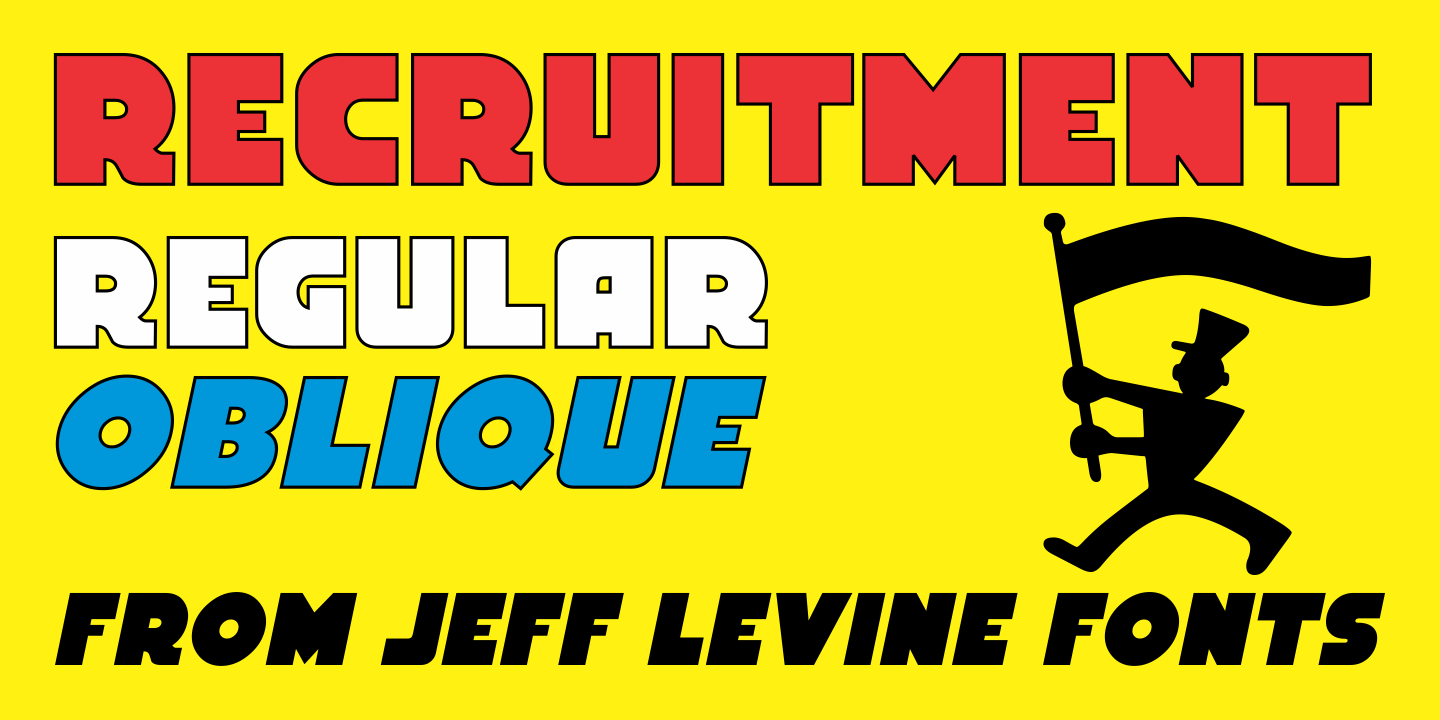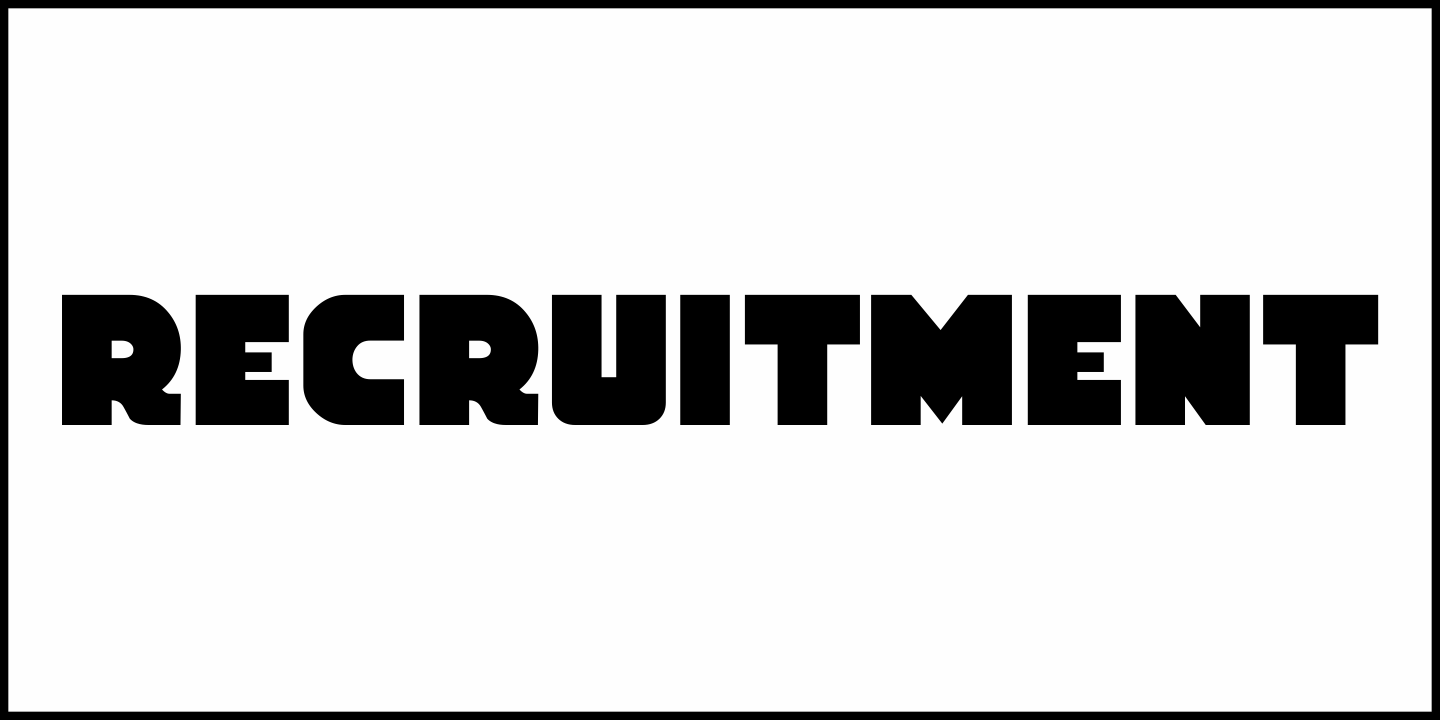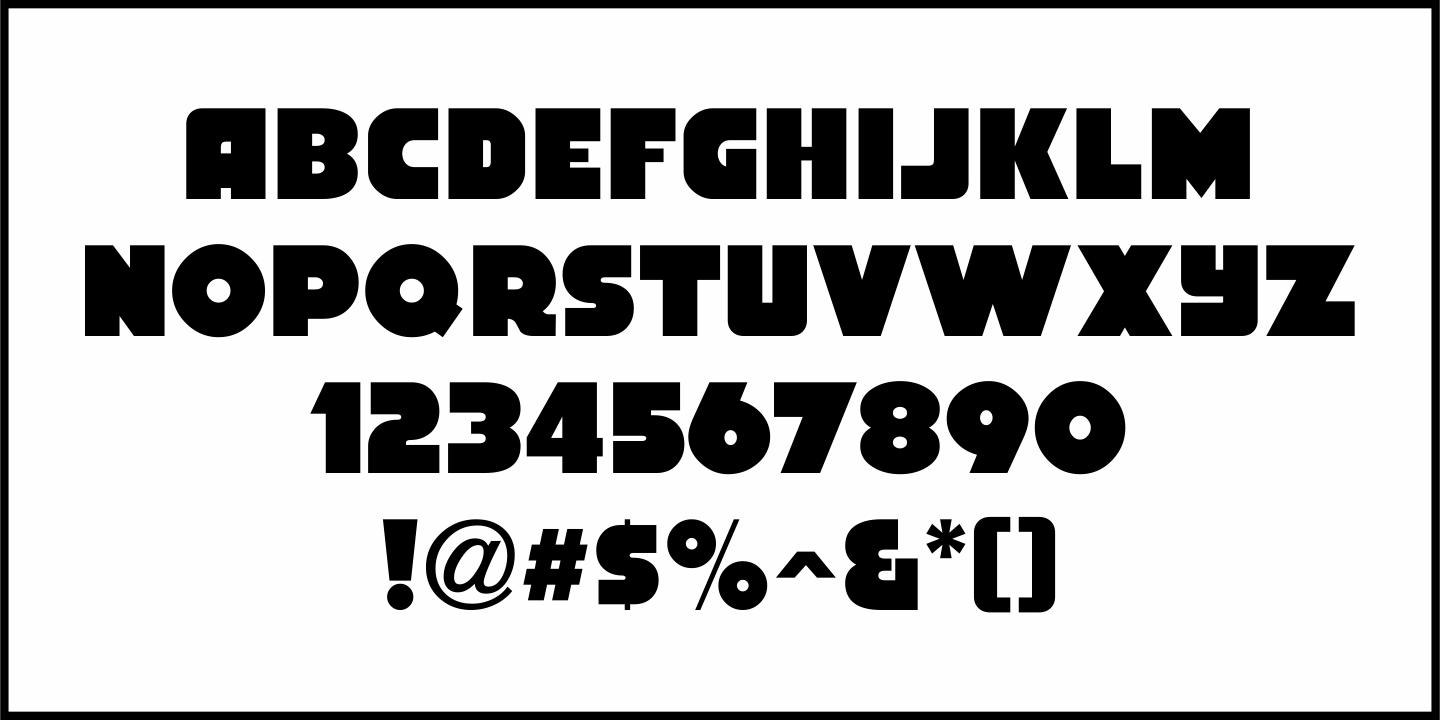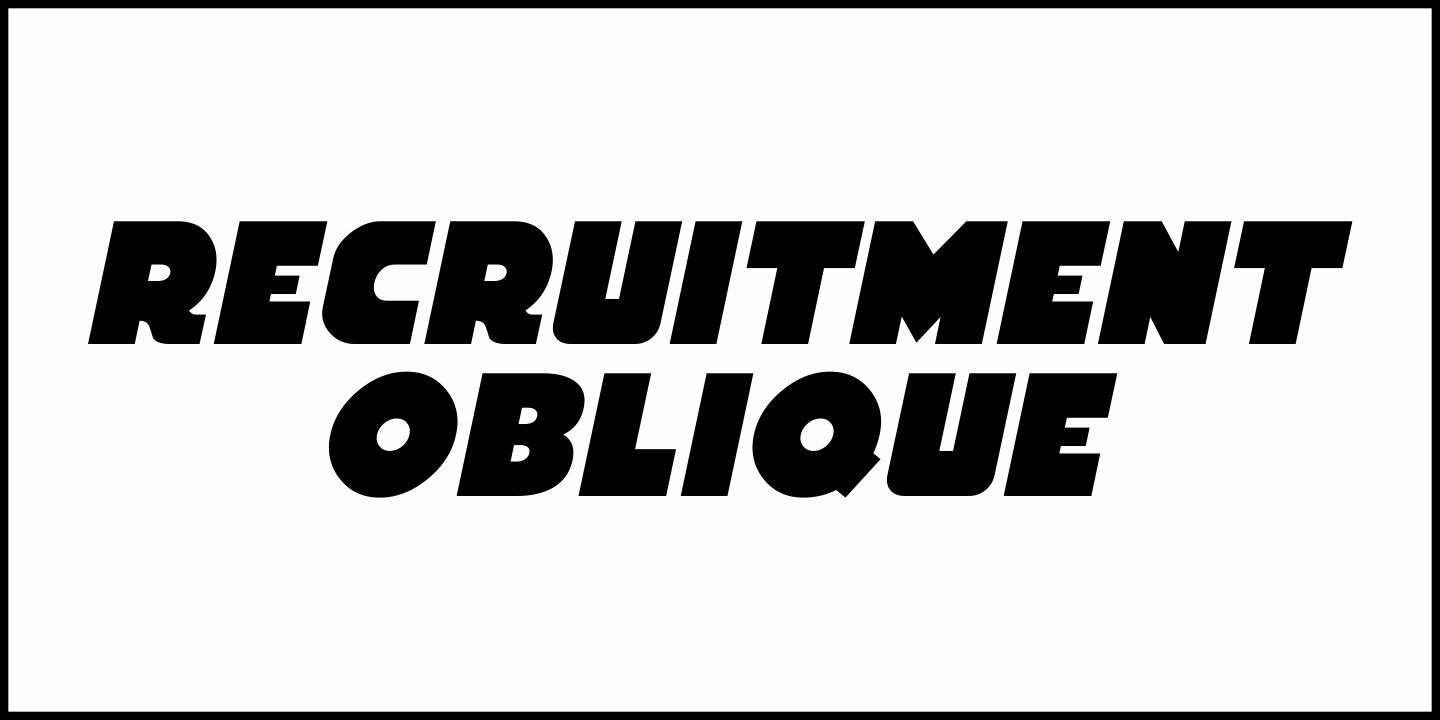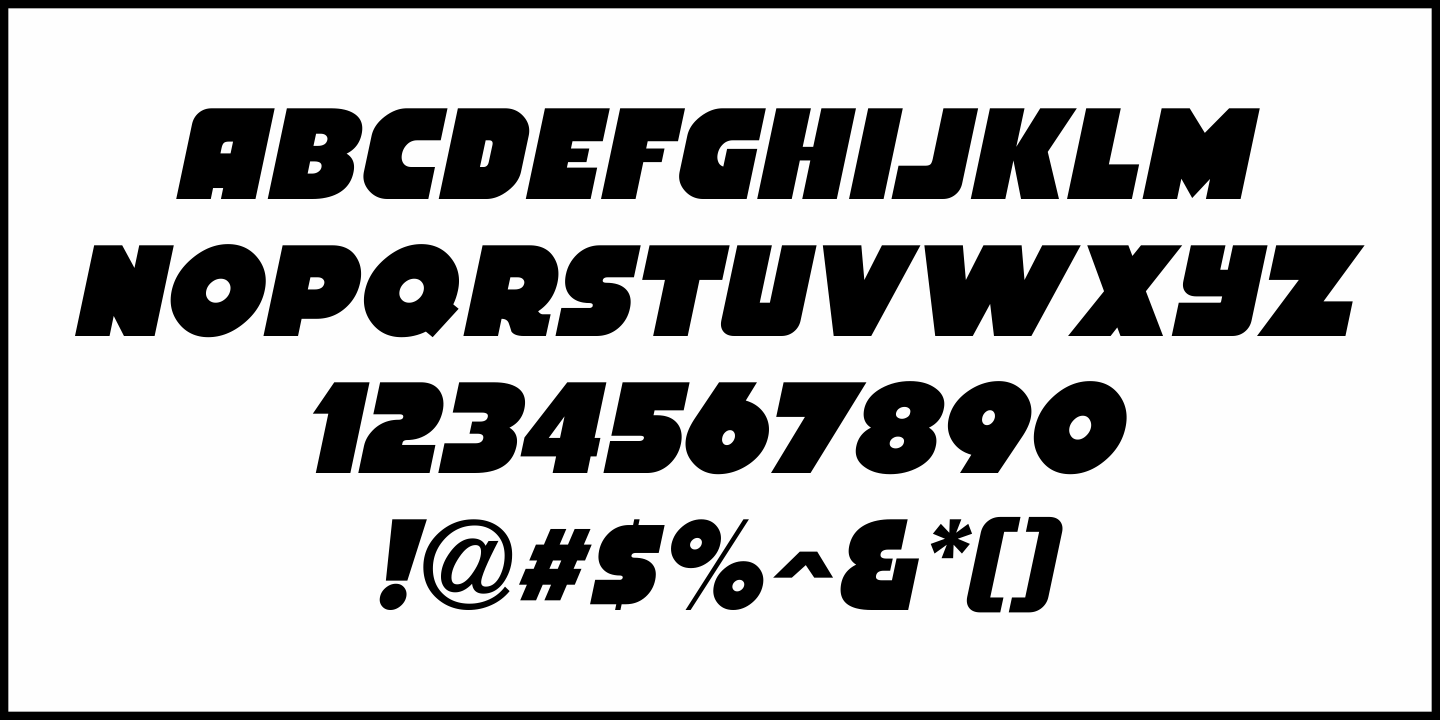
Recruitment
A 1916 recruitment poster from World War I seeking men to join the Army’s Signal Corps provided the lettering inspiration for Recruitment JNL, which is available in both regular and oblique versions.
Recruitment by Jeff Levine Fonts